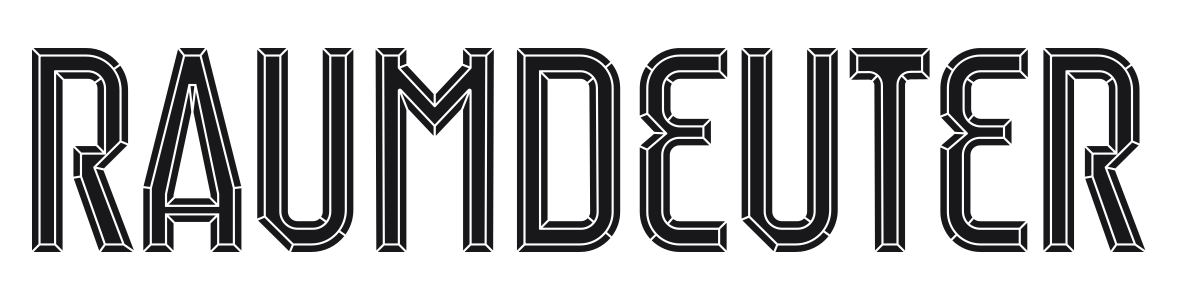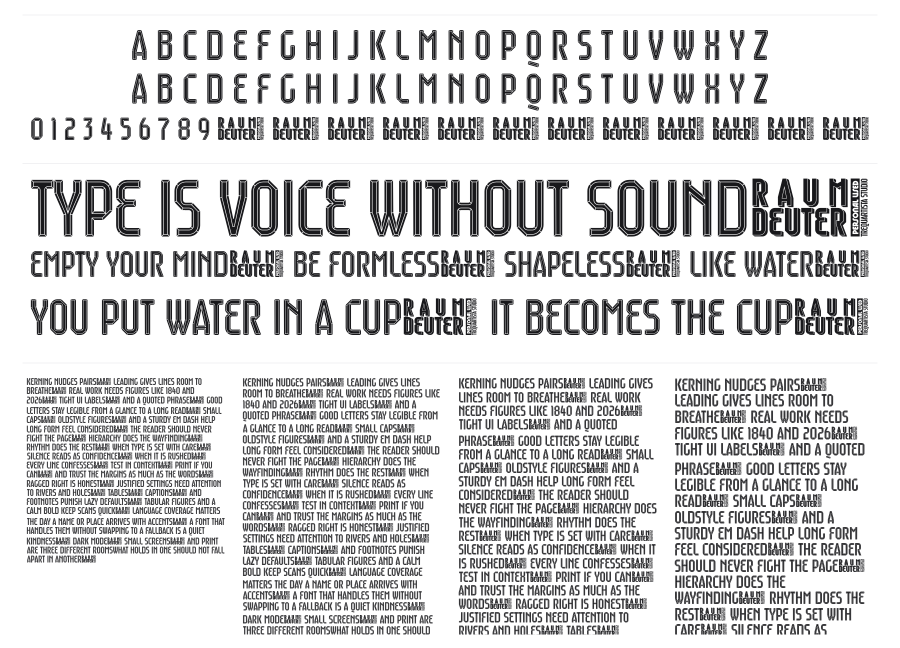
Raumdeuter
Raumdeuter is a tall condensed display face with a bold inline outline treatment that gives every character a layered, architectural depth. The squared geometric construction and blunt terminals draw directly from Art Deco signage traditions of the 1920s and 30s. It commands attention at large sizes and suits retro branding, posters, and title treatments.